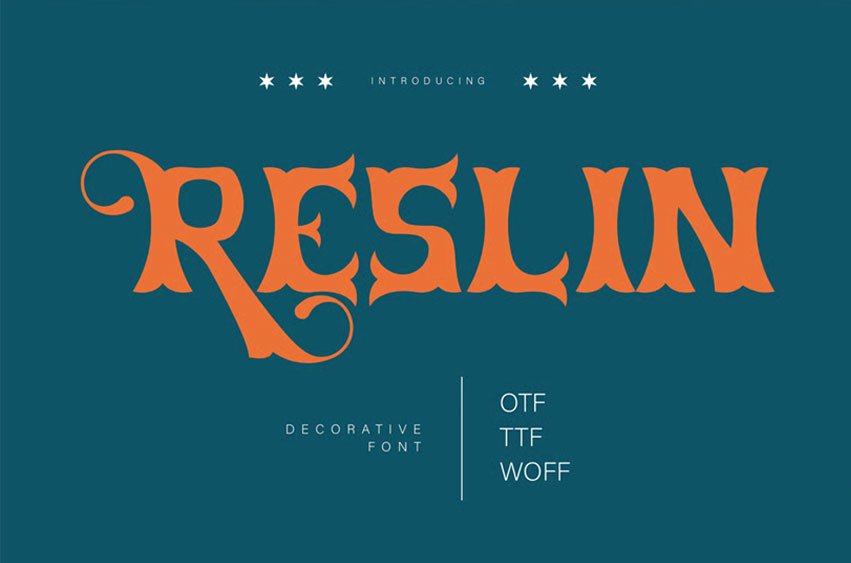
Reslin Font
Reslin Font is a bold and striking decorative font that captures attention with its intricate and unique design.
Featuring sharp angles and dynamic curves, this font combines modern flair with artistic complexity, making it perfect for creative projects that demand a visual impact.